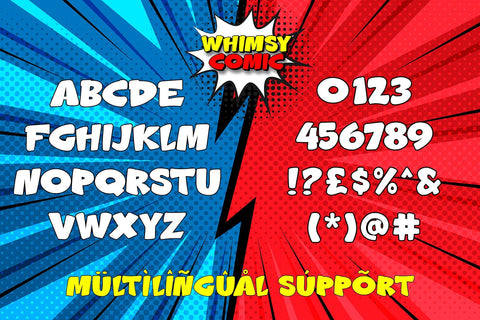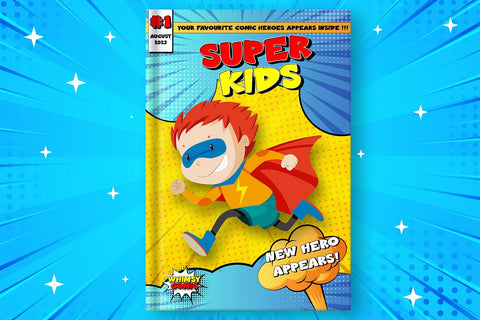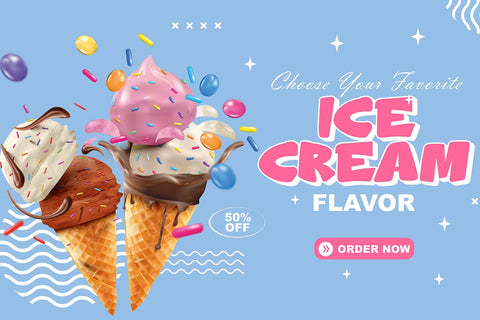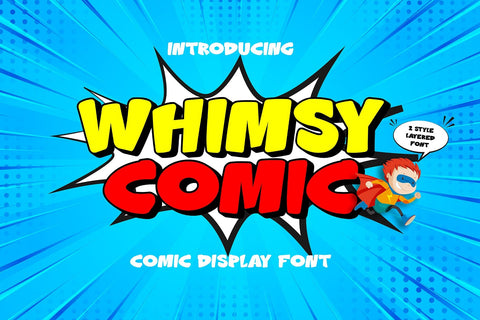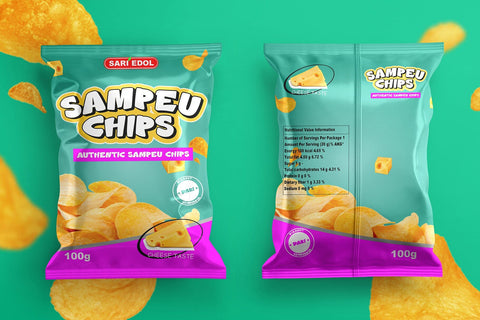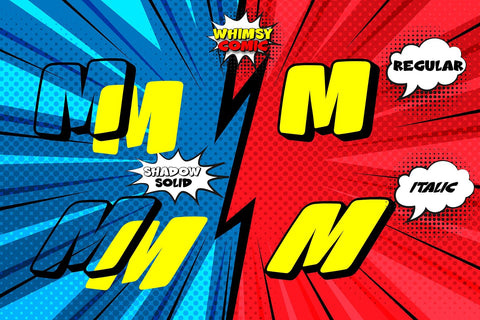
Whimsy Comic - Cute Layered Font
"Whimsy Comic" is a display font featuring charming and playful characters. This font exudes a sense of cheerfulness and lightheartedness. It offers four styles: regular solid, regular shadow, italic solid, and italic shadow. These variations allow you to experiment with different looks for your designs. Whether you're working on comics, children's books, posters, or any other creative projects, "Whimsy Comic" adds a delightful touch that will captivate your audience with its endearing and versatile style.